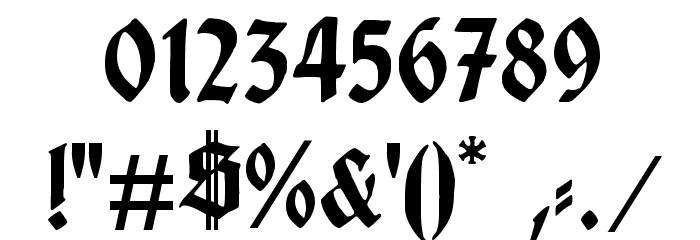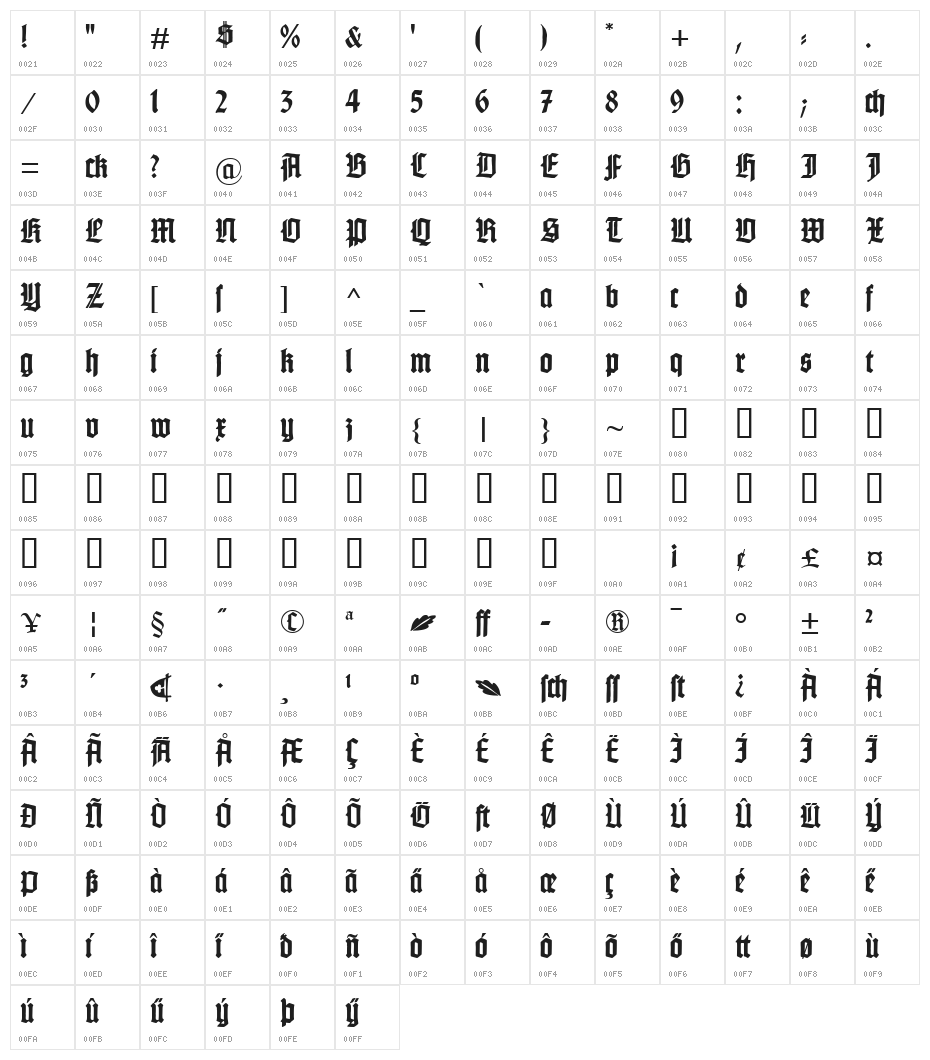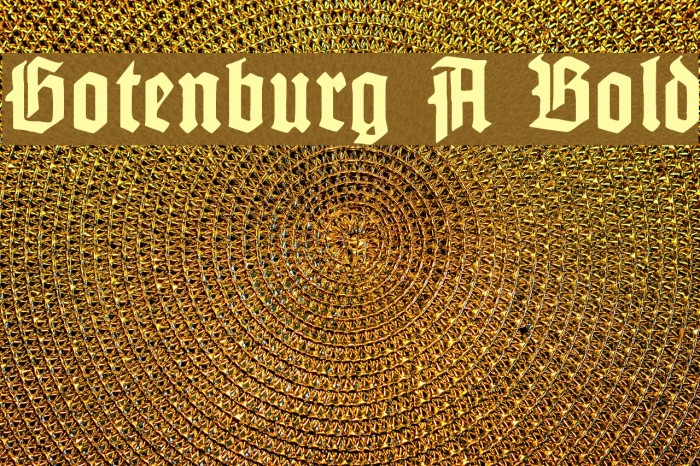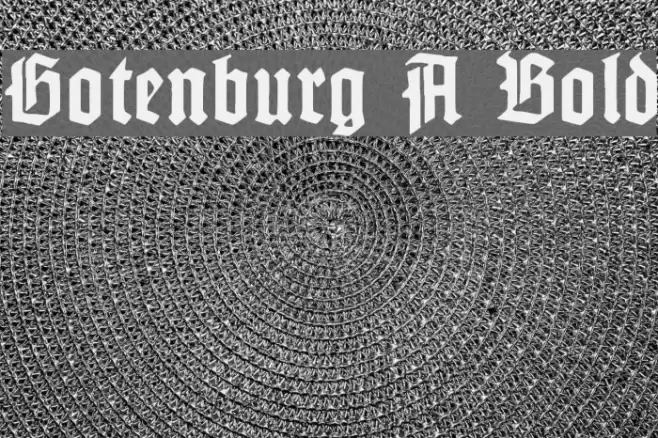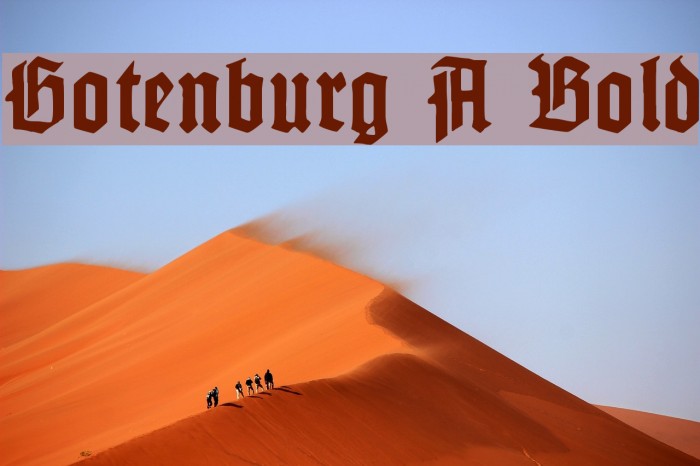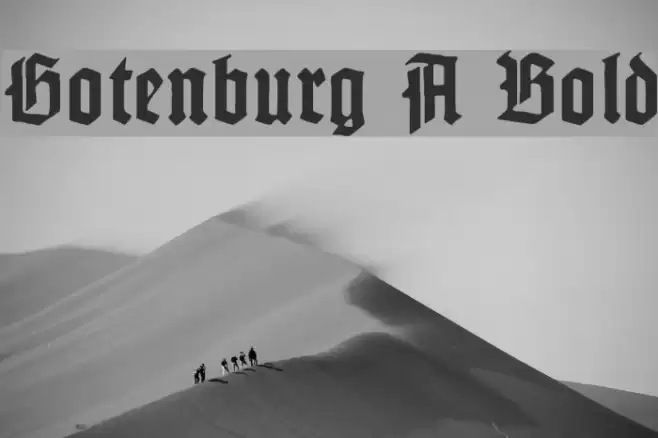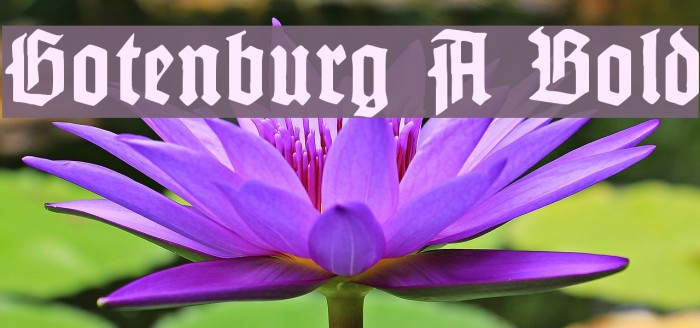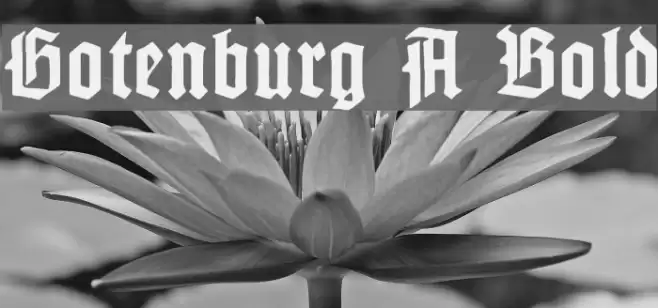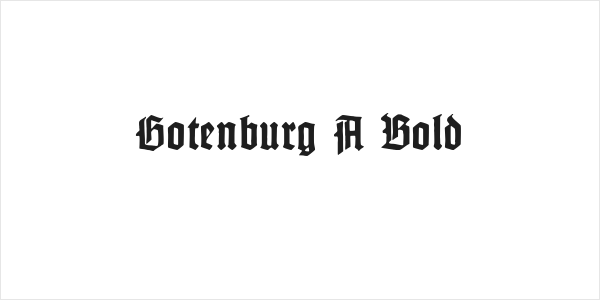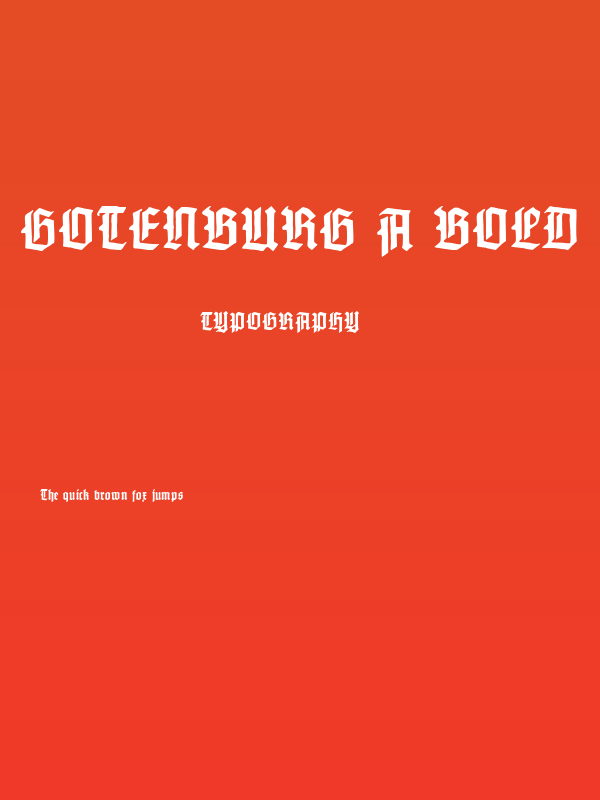
Gotenburg A Bold Font
Gotenburg A Bold Description
This font exhibits a bold and striking blackletter style, characterized by its sharp, angular lines and intricate detailing. The uppercase letters are particularly ornate, with elaborate serifs and a strong vertical emphasis. The lowercase letters maintain the same gothic aesthetic, offering a cohesive look across different text sizes. The numerals and special characters are designed to match the overall medieval theme, making this font ideal for projects that require a historical or dramatic flair. Its bold presence makes it suitable for impactful headlines or decorative purposes.
| Use Case | Headlines, Logos, Decorative text |
| Proposed Projects | Ideal for use in branding, posters, book covers, or any project requiring a medieval or gothic aesthetic. |